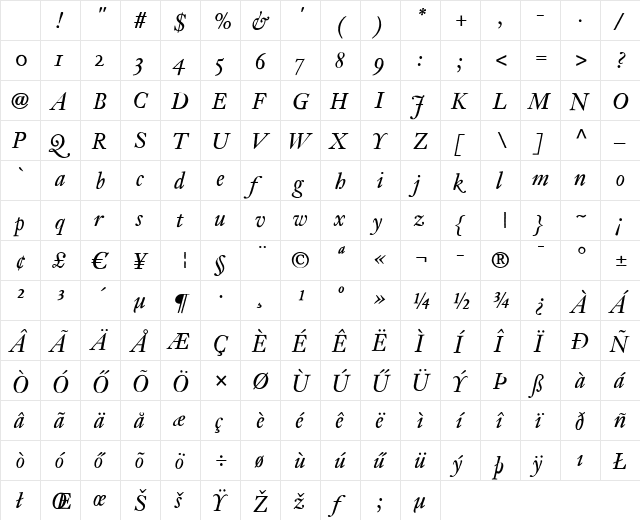
Complete Archetype Italic glyph index. Displaying only characters natively supported by Archetype Italic font.
Archetype is a composed and adaptable typeface that performs quietly and consistently across a wide range of design contexts. The slanted form adds forward momentum and visual energy.